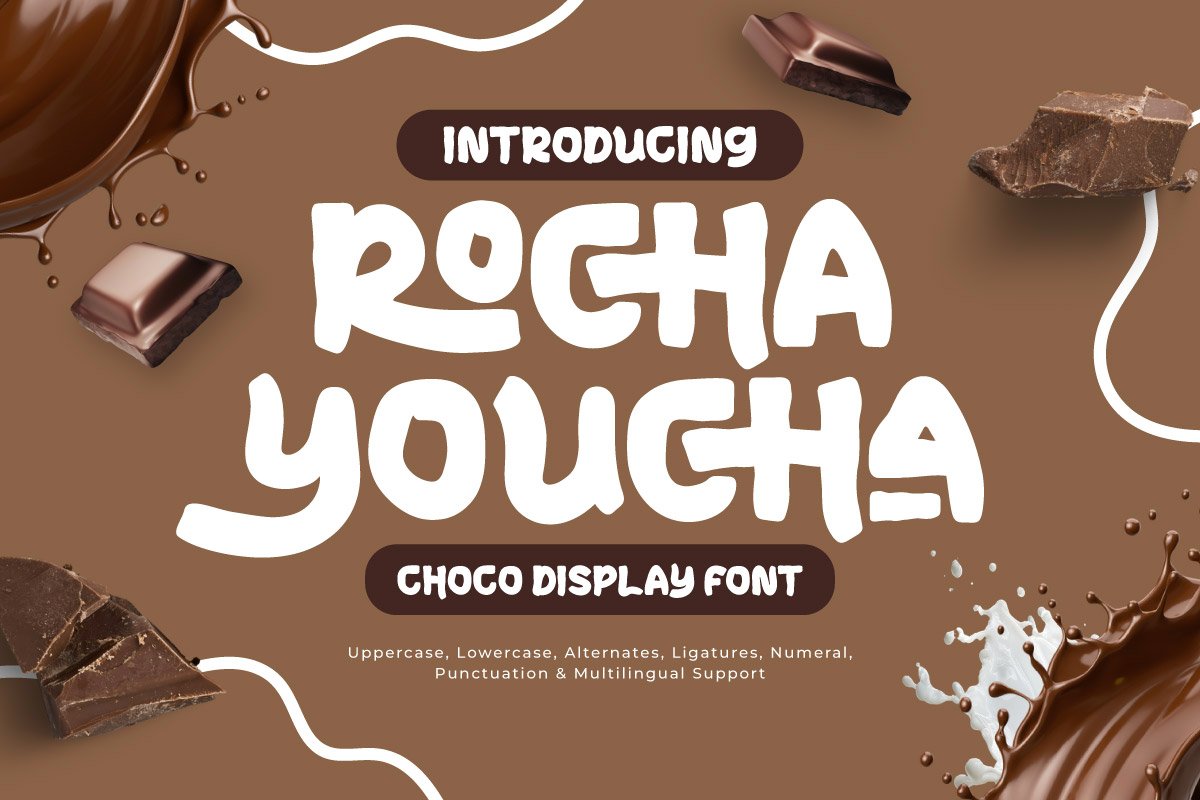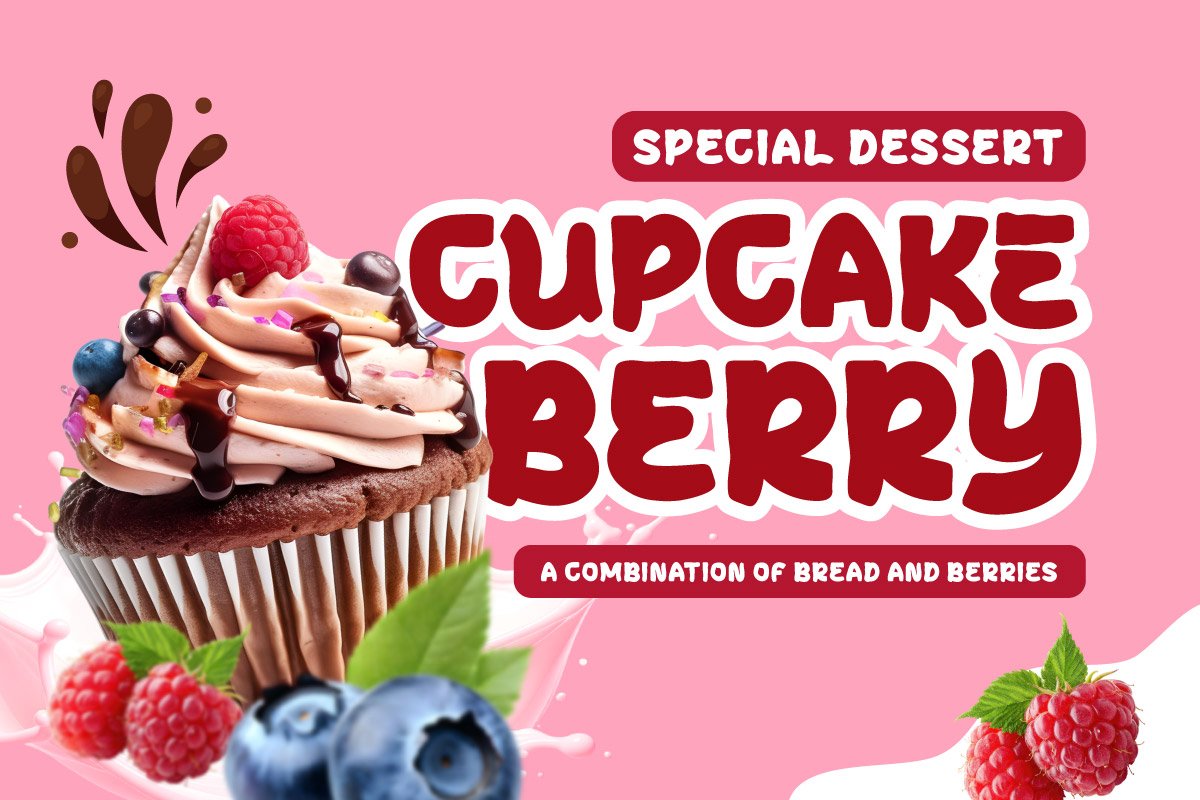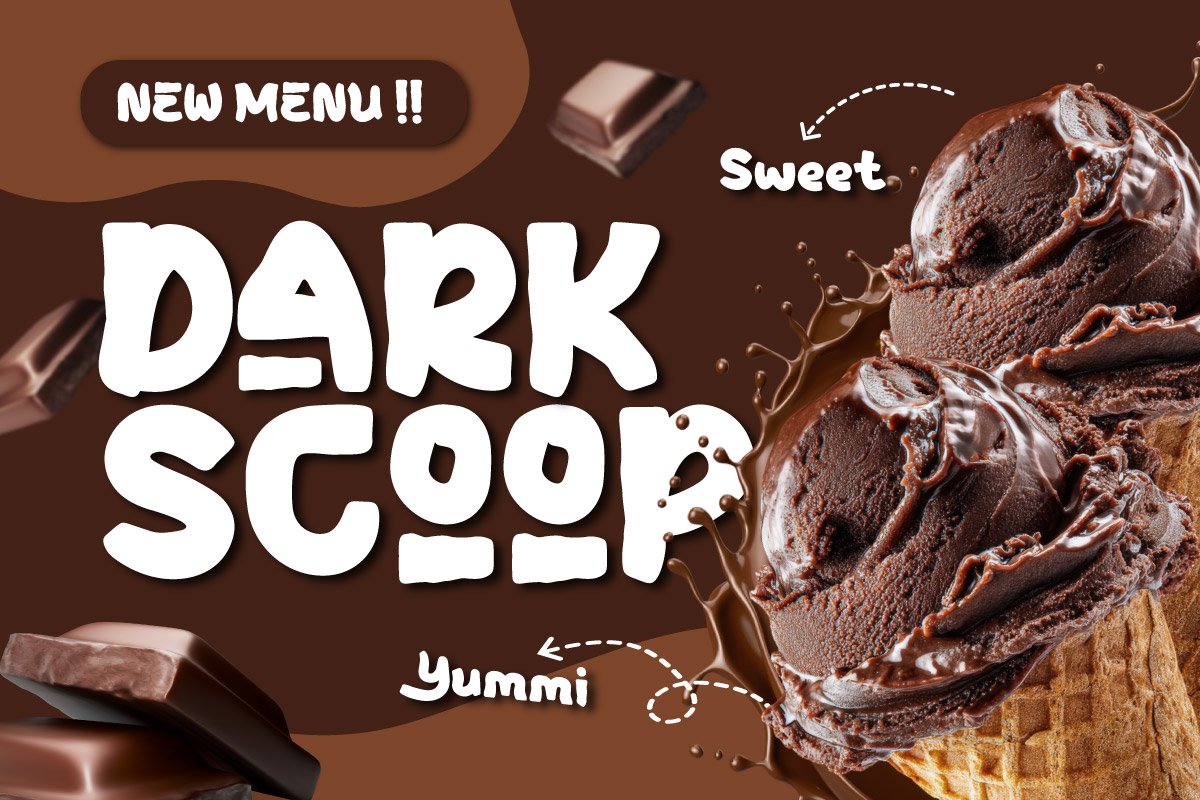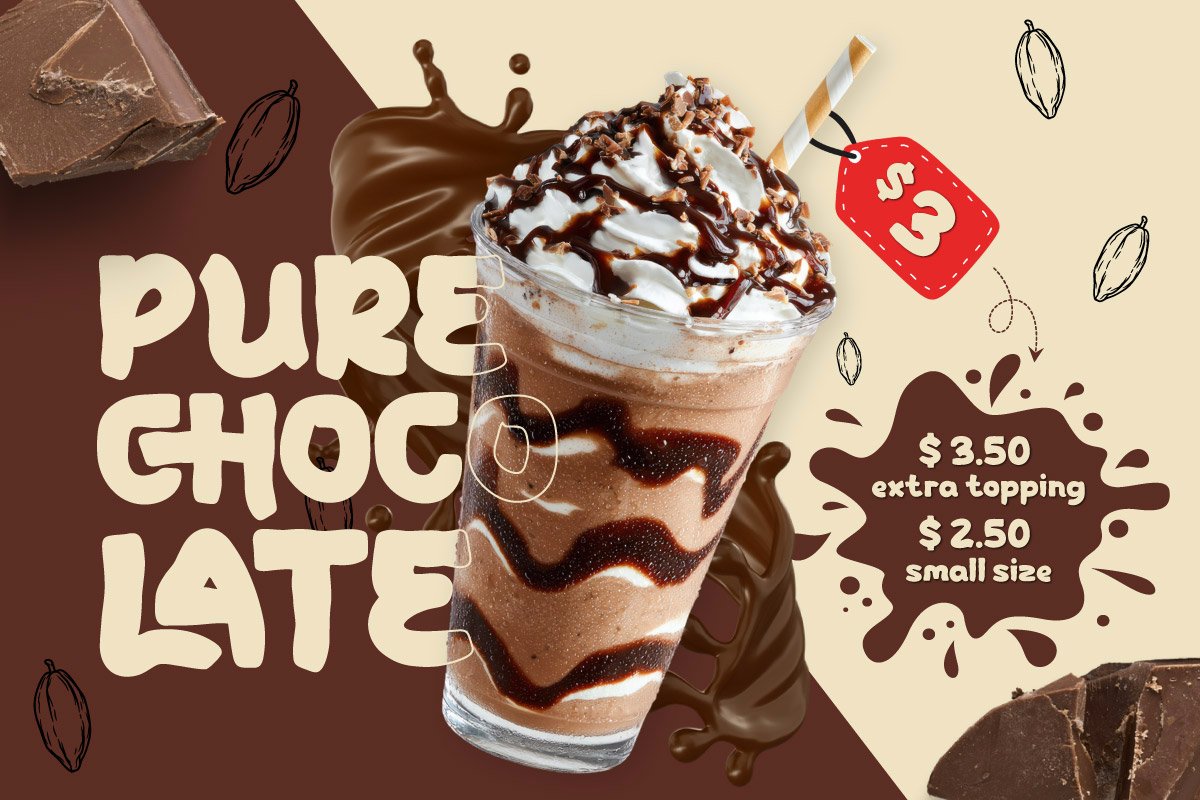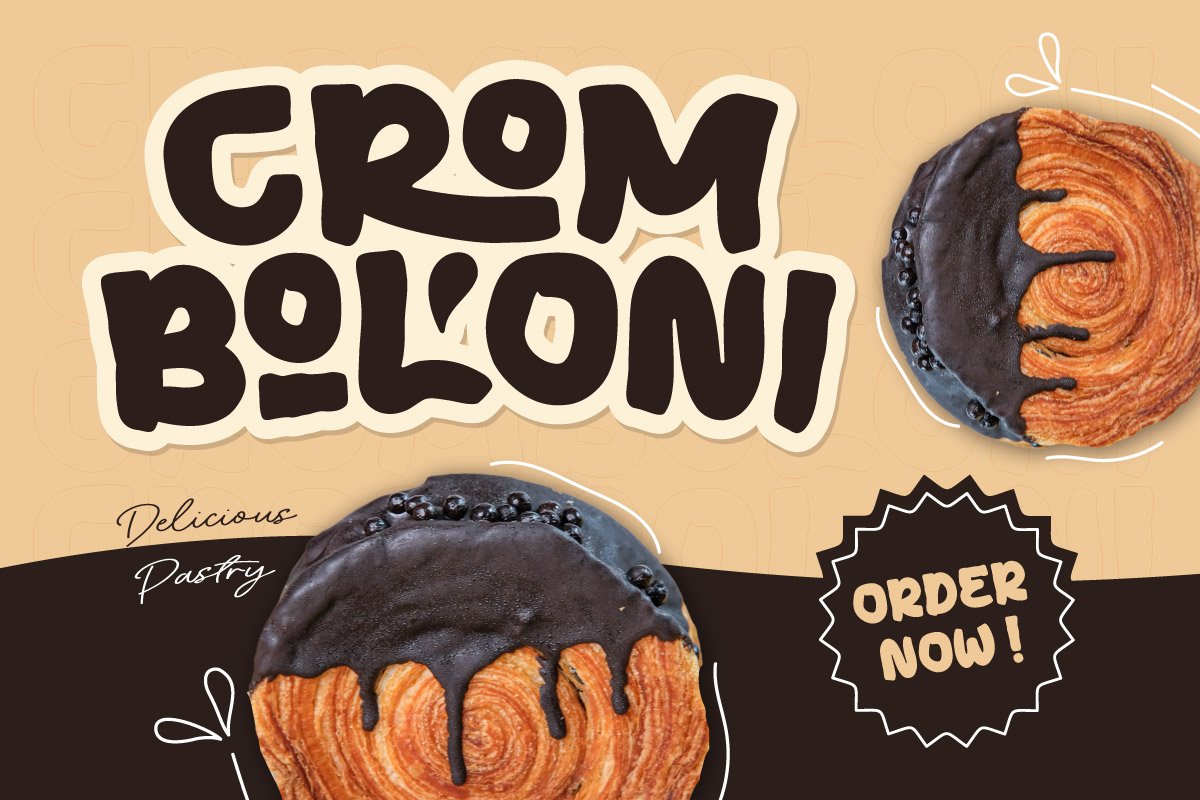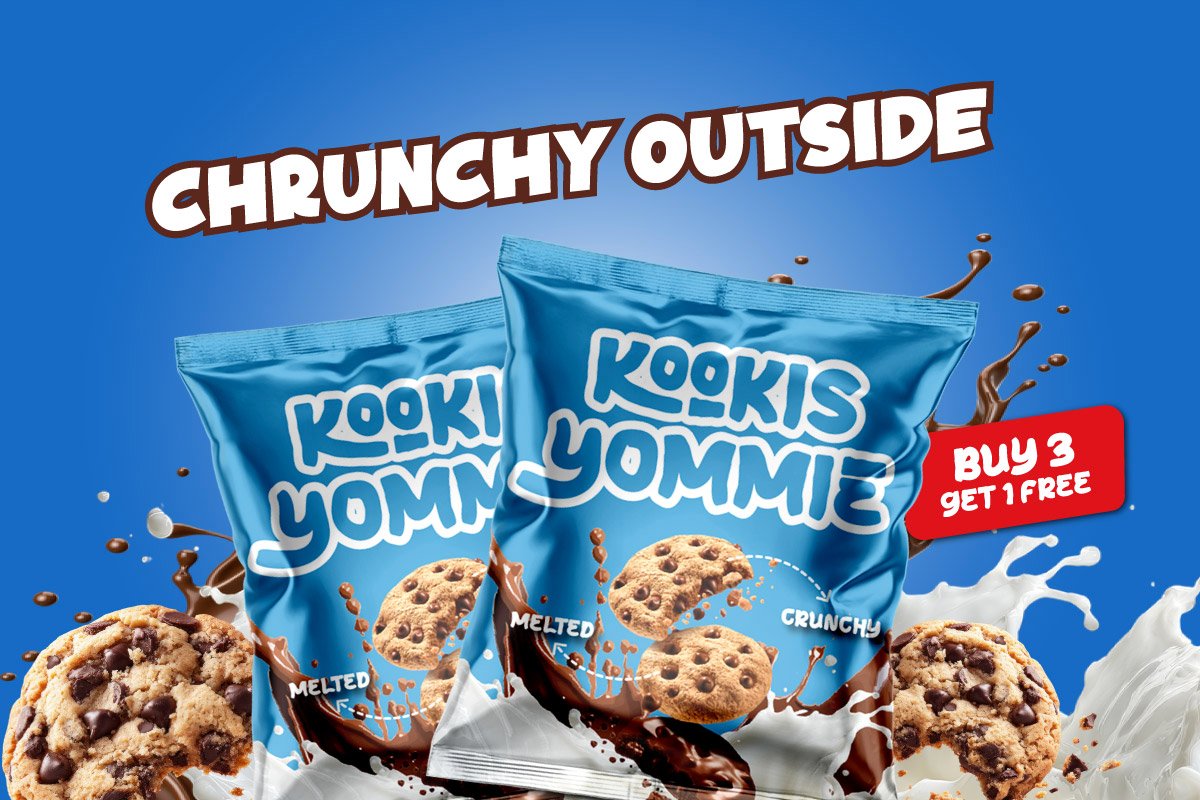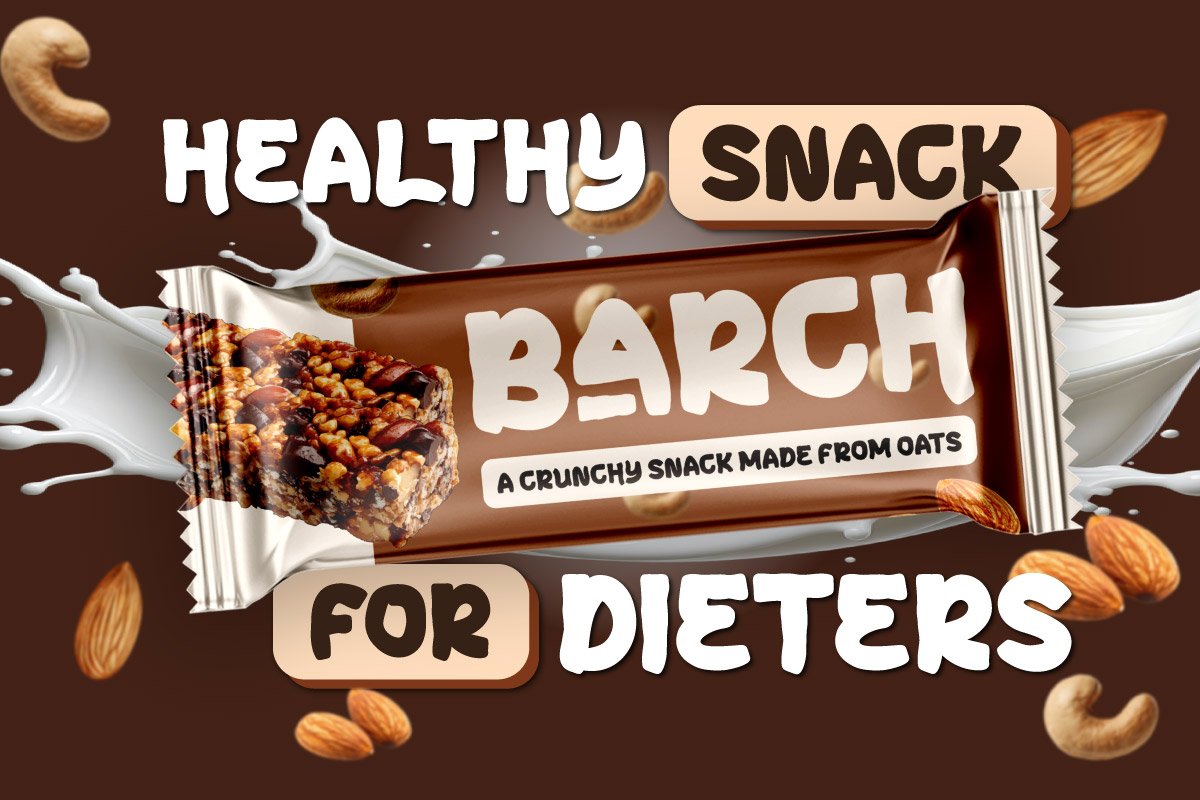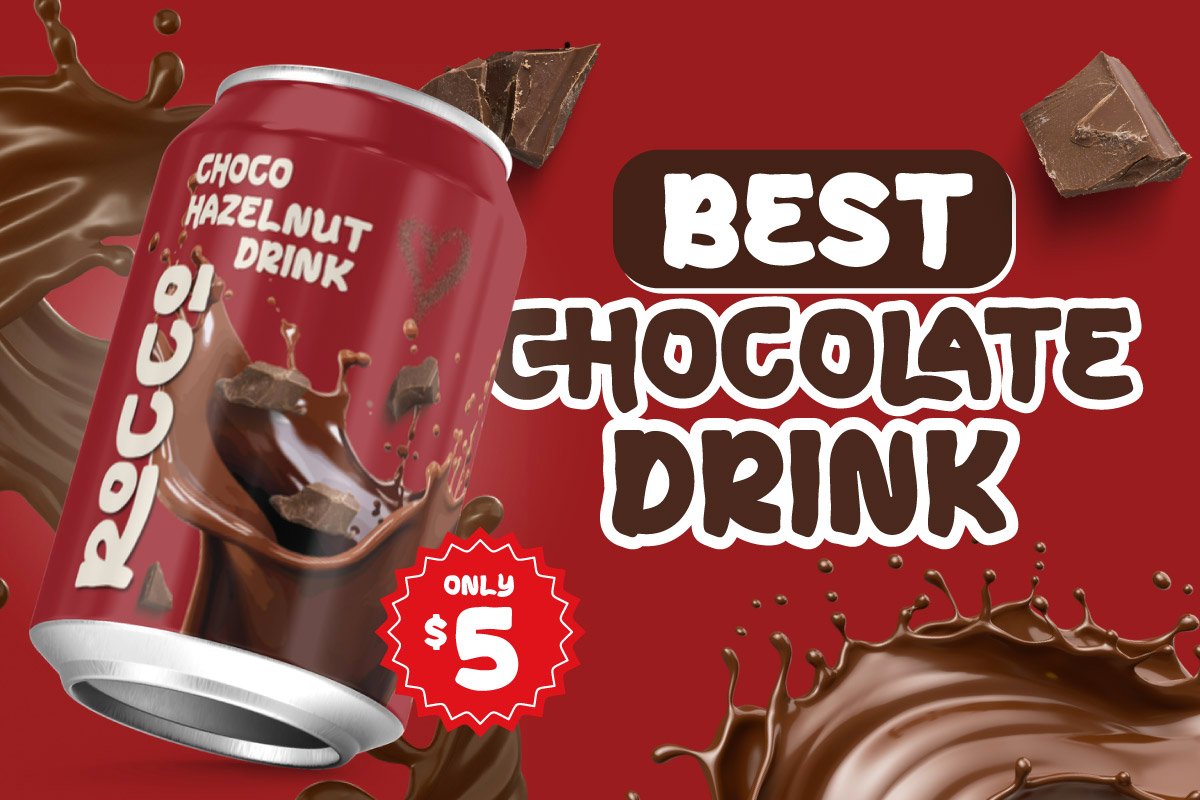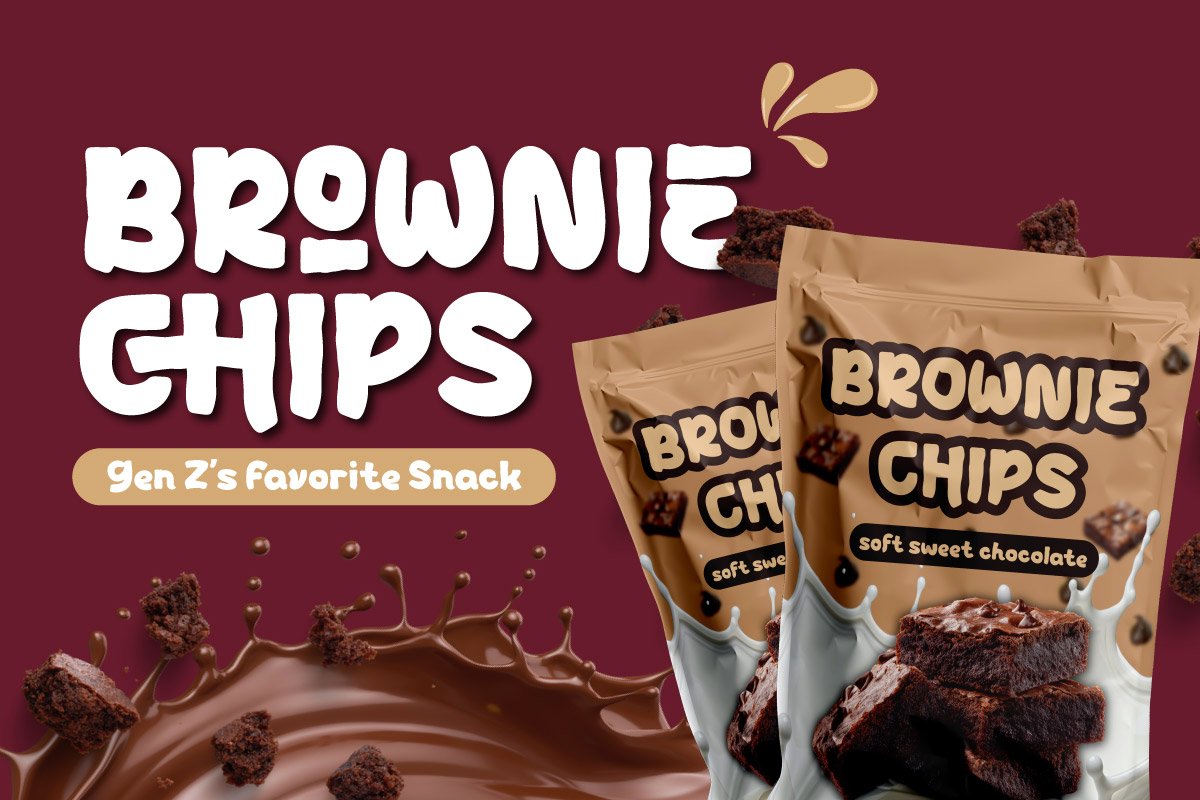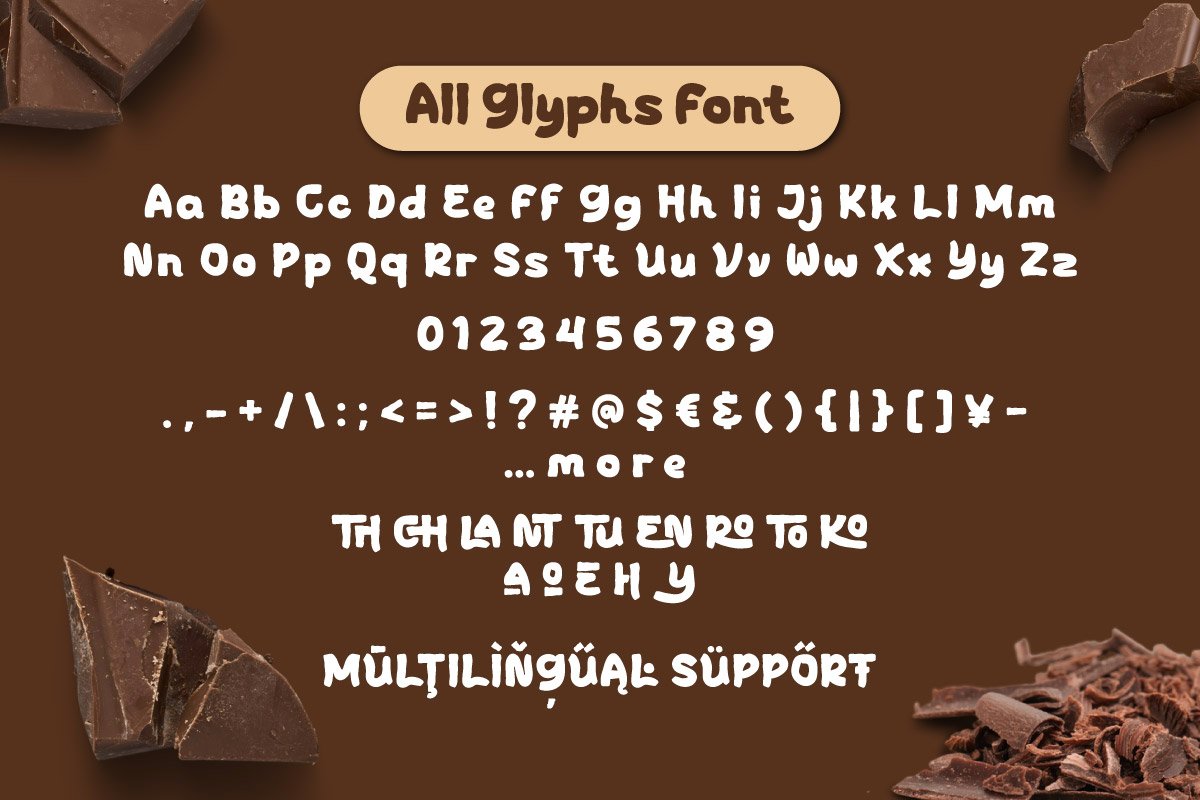
Rocha Youcha – Choco Display Font
Rocha Youcha is a Choco Display Font typeface designed to enhance the visual appeal of products within the F&B (Food & Beverage) industry. Featuring ultra-rounded and bold letterforms, this font represents the soft texture of chocolate and sweet treats, creating a friendly and appetizing impression for consumers in the Snack & Confectionery sector.
The design prioritizes solid character volume to ensure high readability on Chocolate Bar packaging and other daily product labels. Highly relevant to Daily Break-time Snack themes, Rocha Youcha provides a cheerful vibe that makes break moments feel more enjoyable. Its consistent anatomical structure helps designers create product identities that stand out while remaining warm and approachable.
As a culinary typography solution, Rocha Youcha is equipped with ligatures and alternates that provide creative flexibility for bakery logos, promotional posters, and social media content. Its ability to create “delicious” visuals makes it an essential asset for strengthening daily product branding. This font is the perfect choice for designers aiming to bring a modern, cheerful, and personality-filled character to culinary packaging designs.